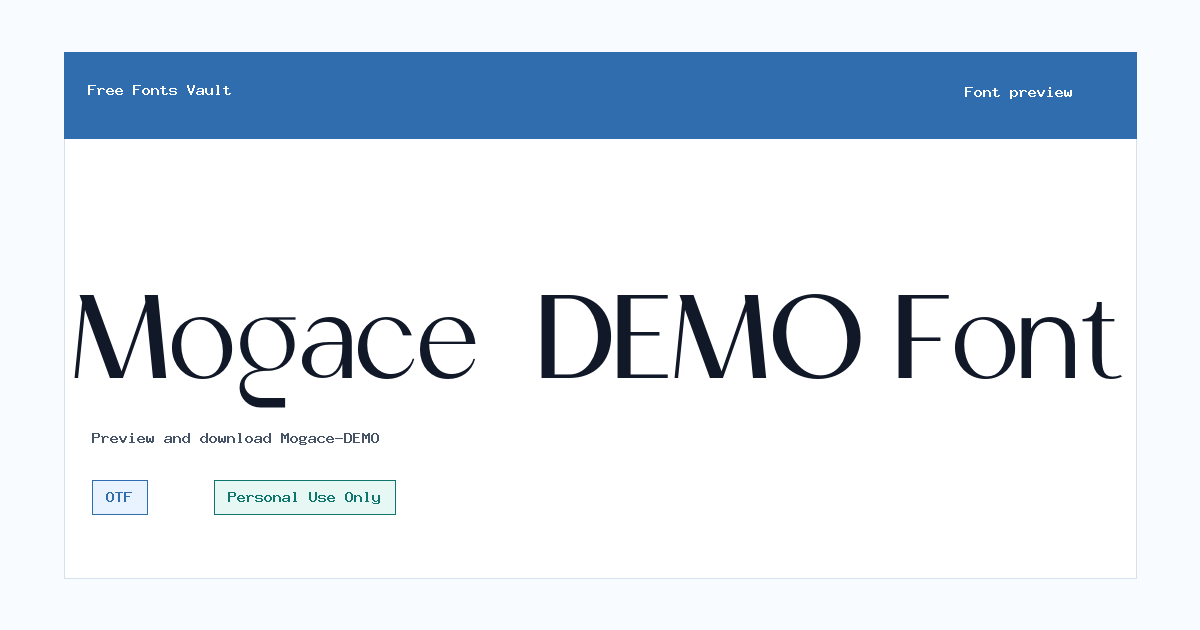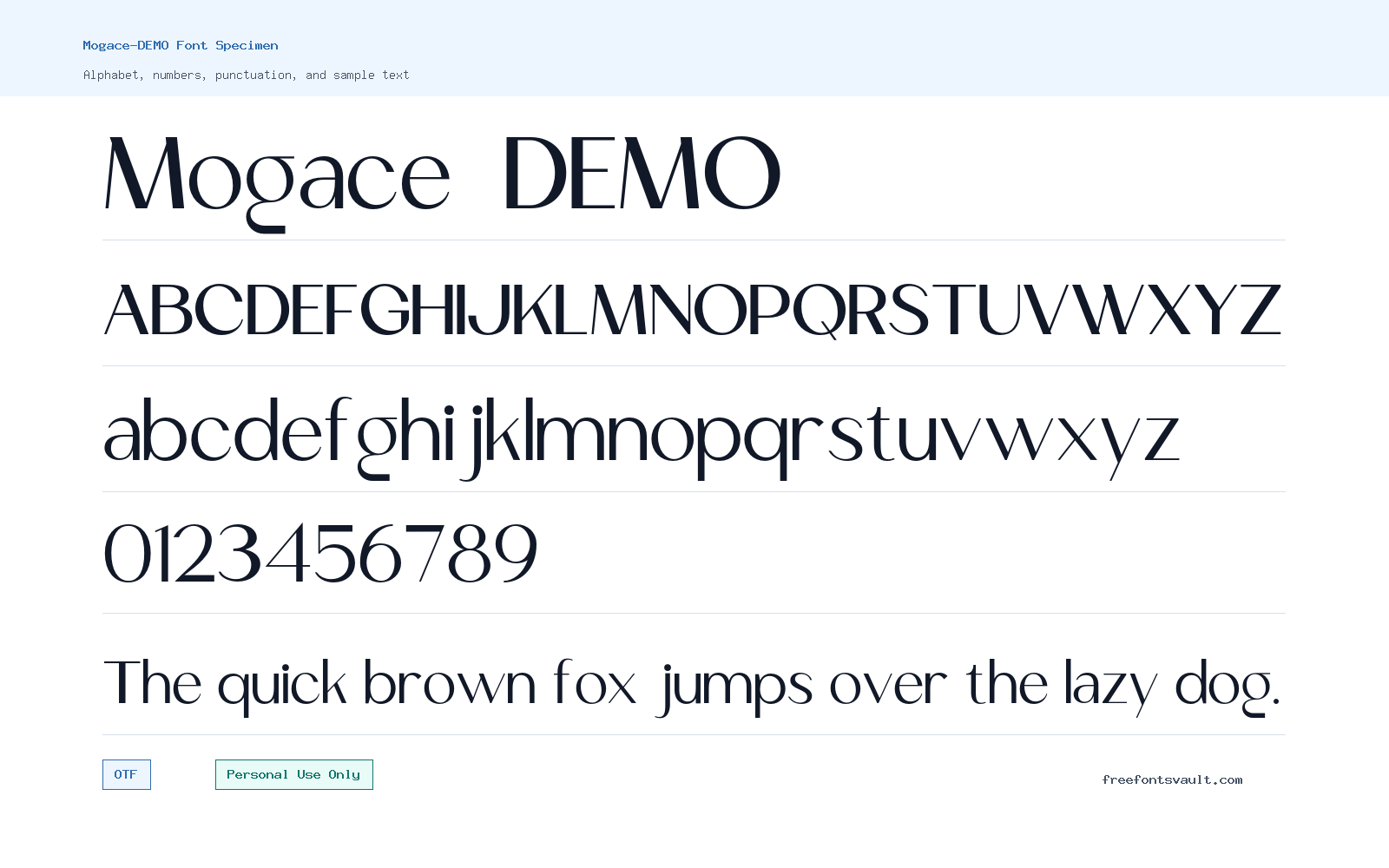
Mogace-DEMO
Mogace-DEMO font preview showing the family name
Mogace-DEMO Font
Mogace-DEMO font specimen showing alphabet, numbers, and sample text
• Designer Bakhrudin Ja'far
Mogace-DEMO font.
Mogace-DEMO is a personal-use demo font in OTF format, credited to Bakhrudin Ja'far. It is a practical choice for trying a clean display style in previews, mockups, posters, logo drafts, and short text layouts before deciding whether it fits a larger project.
About Mogace-DEMO Font
Mogace-DEMO is best approached as a display font for controlled design work rather than a long-reading text face. The demo file is a regular style with normal weight, so it is useful for testing the core look of the family without needing to compare multiple weights. Use the preview area to check the letters that matter most for your project: brand initials, product names, numerals, punctuation, and any accented characters you plan to use. A font can look strong in a sample word but behave differently in a real title, so it is worth testing the exact wording before downloading or installing it.
For logo work, start with short names and generous spacing. Demo fonts can be useful for early direction, but a logo usually needs careful checking for kerning, uniqueness, licensing, and trademark risk. Mogace-DEMO may help you explore a visual direction, but it should not be the final choice for a commercial identity unless the proper license is confirmed. In poster or cover layouts, try it at larger sizes where the shapes can be seen clearly. For web mockups, test it in headings, hero text, buttons, and navigation labels, then compare it against a neutral companion font to make sure the page remains easy to scan.
• Useful for short display text such as headings, names, poster titles, and mockup lettering
• Personal poster designs and practice layouts
• Logo concept sketches before licensing decisions
• Short headings in web or app mockups
• Display typography experiments
• Social graphic drafts for non-commercial use
• Brand moodboard exploration
• Title treatments where only a few words are needed
Who designed Mogace-DEMO?
Mogace-DEMO is credited to Bakhrudin Ja'far.
Is Mogace-DEMO good for body text?
It is better to test it as a display font for short text, headings, titles, or visual concepts. For paragraphs, pair it with a clearer reading font.